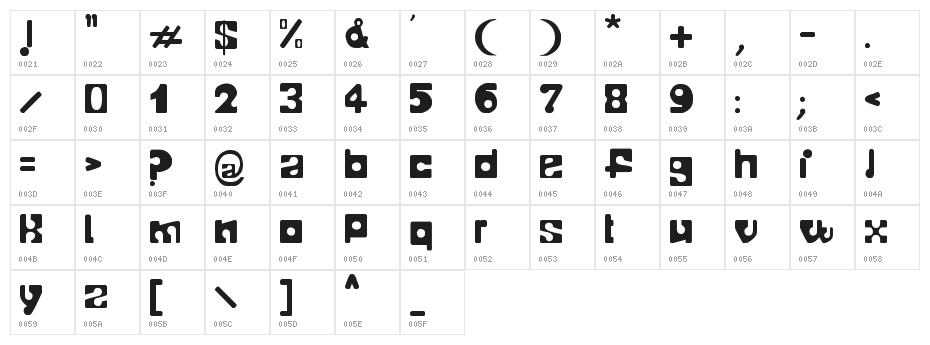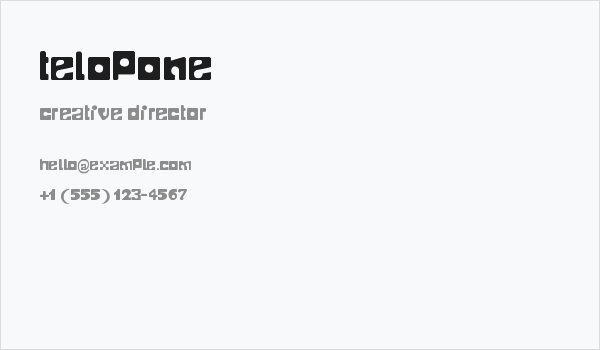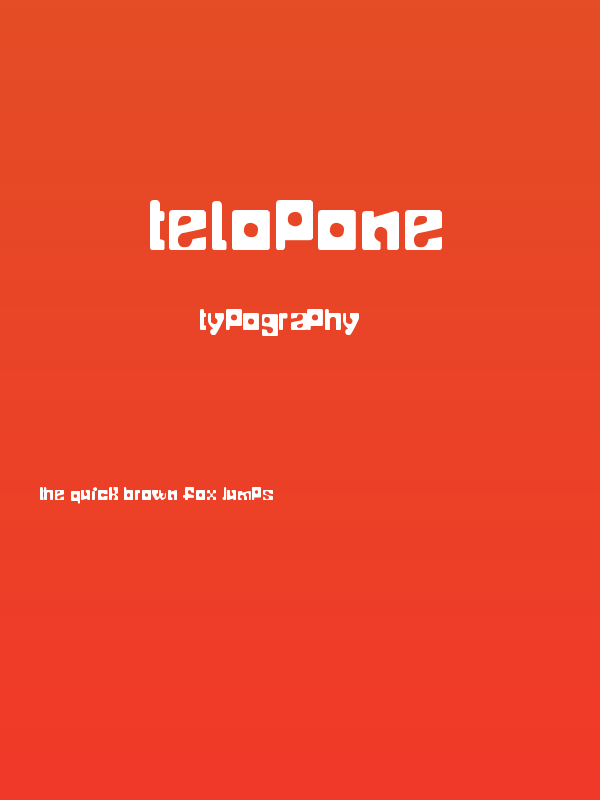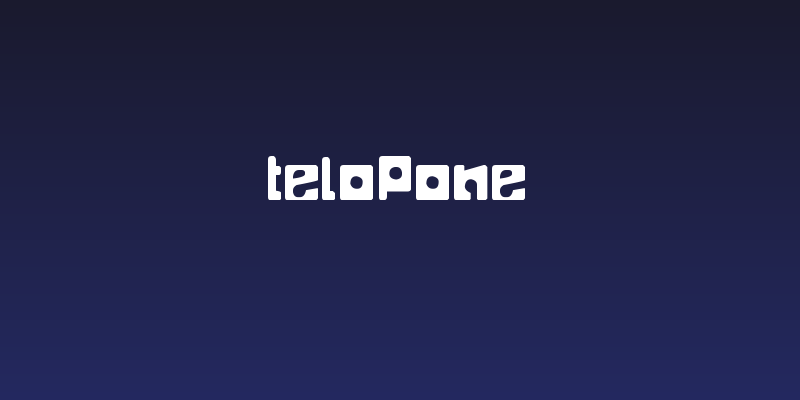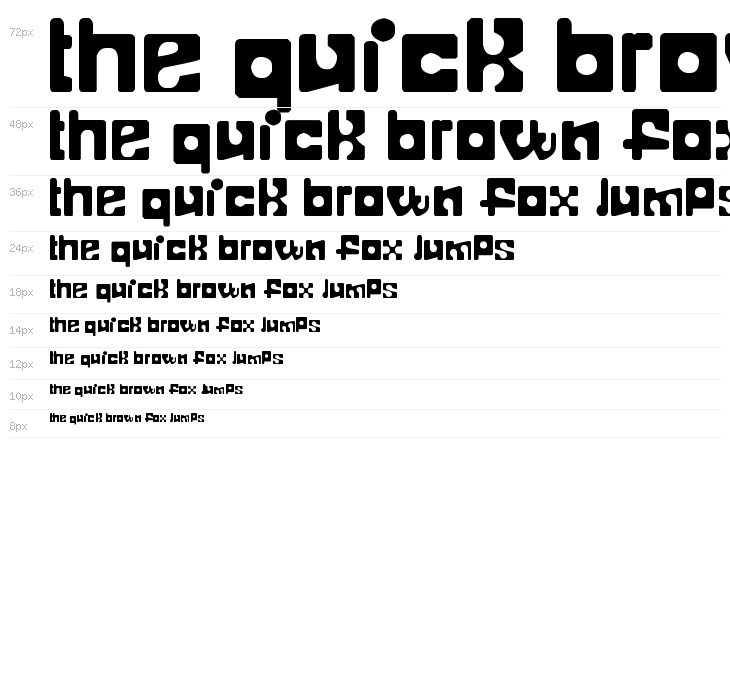
TELOPONE Font
TELOPONE Description
This font features a bold and geometric style with a distinct blocky appearance. The characters are uniformly thick, creating a strong visual impact. The design incorporates rounded edges and a playful, almost futuristic aesthetic. The uppercase and lowercase letters maintain a consistent height, contributing to a cohesive look. Numbers and special characters follow the same bold and structured design, ensuring readability and uniformity across all glyphs. This font is ideal for projects that require a modern and eye-catching typeface.
| Proposed Projects | Suitable for posters, branding, video game titles, and any project needing a modern, impactful typeface. |